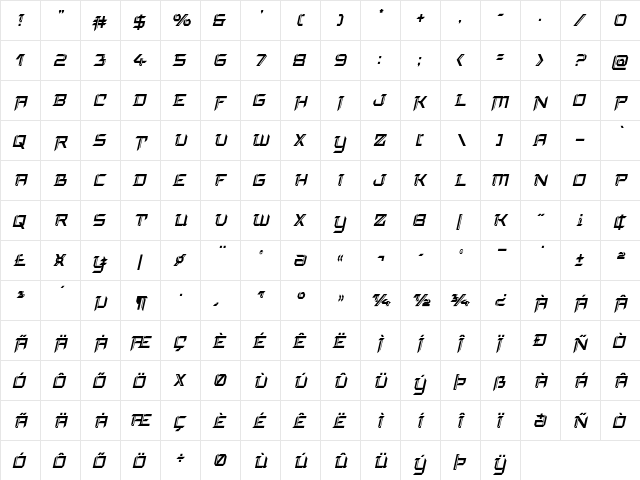
Final Front Condensed Italic Condensed Italic
Design Context for Final Front Condensed Italic Typeface
Final Front Condensed Italic is a composed and adaptable typeface that performs quietly and consistently across a wide range of design contexts. The slanted form adds forward momentum and visual energy. The condensed width makes it efficient for tight spaces without sacrificing legibility.